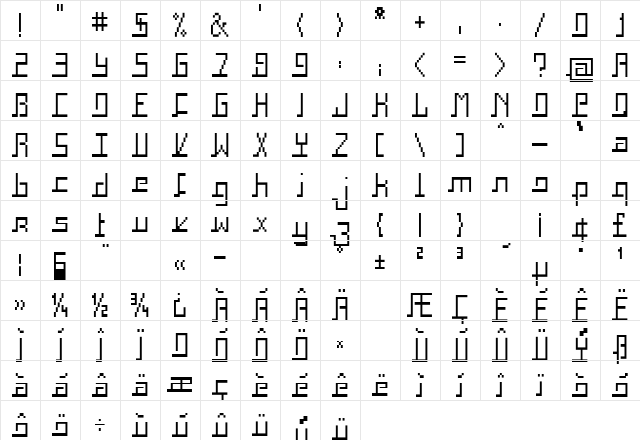
Squaropen Condensed
Design Context for Squaropen Typeface
Squaropen offers clean, dependable letterforms without strong stylistic allegiance, making it a practical choice for designers who need flexibility. Its narrow stance lets it pack a punch even in space-constrained designs.